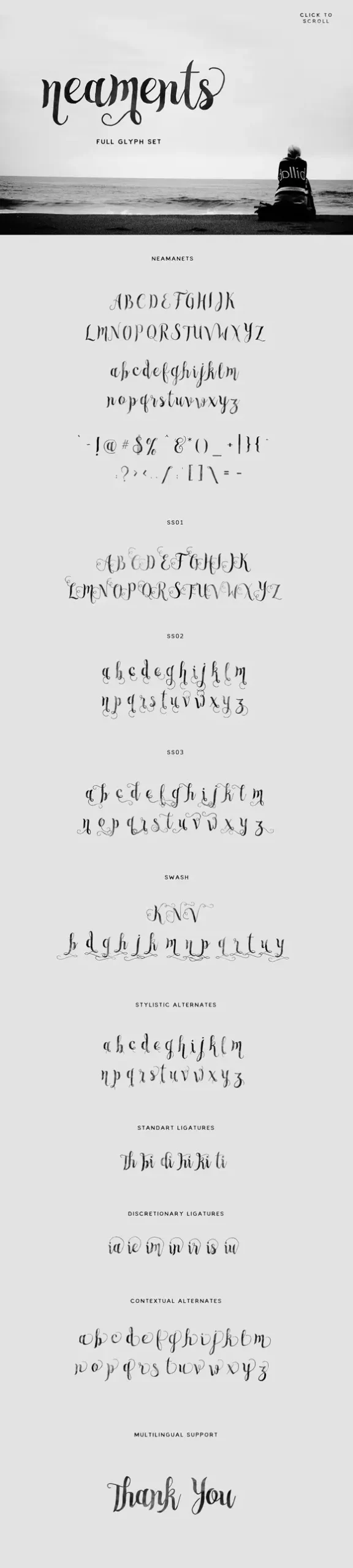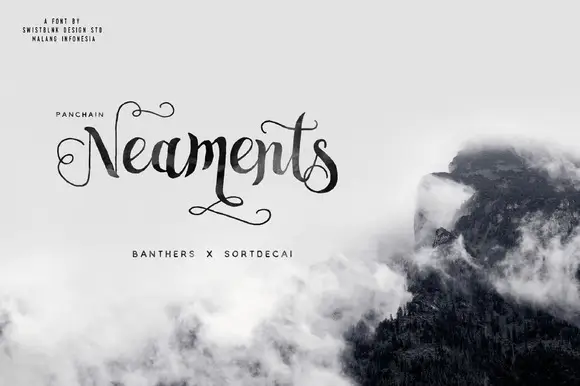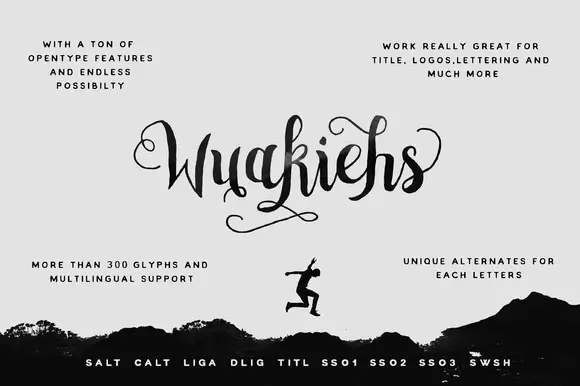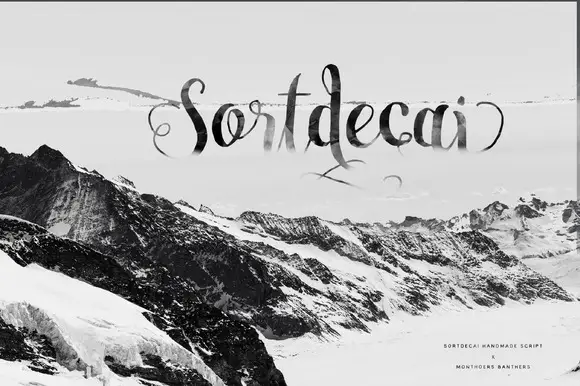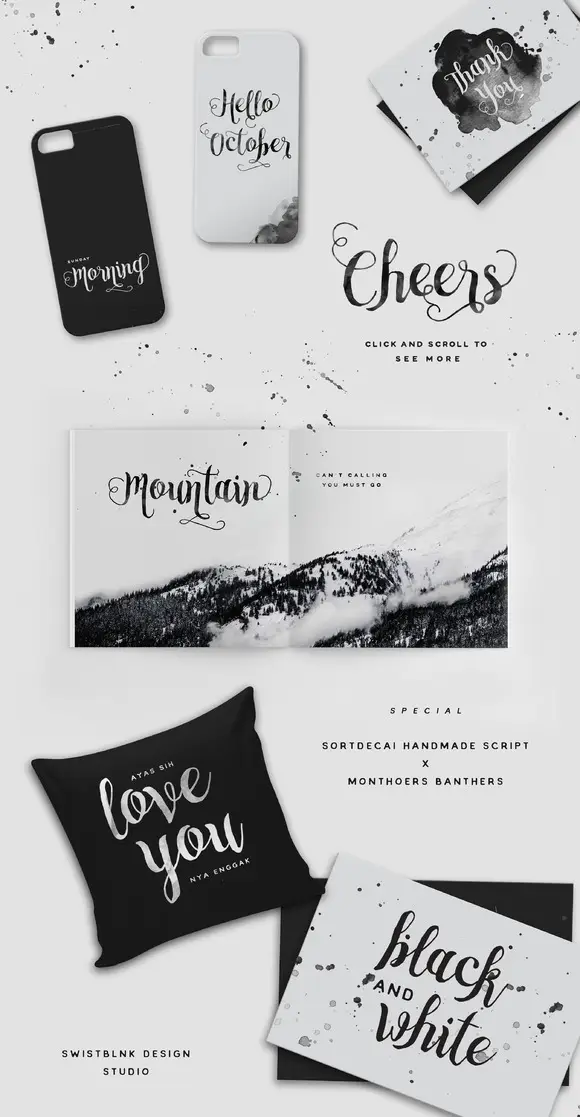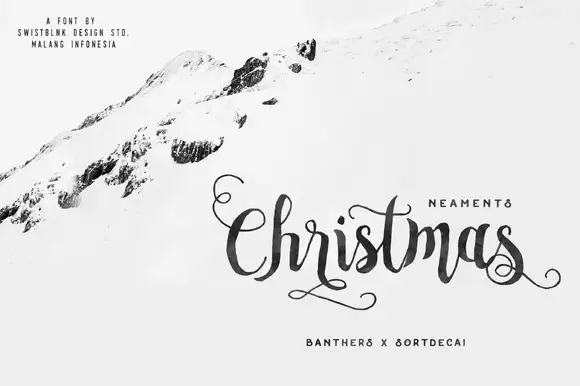
Neaments Typeface
The Neaments Typeface is a unique and versatile font that brings a modern touch to your design projects. With its clean lines and distinct character, this typeface is perfect for a variety of applications, including branding, logos, web design, and print materials.
• Multiple weights for flexibility
• Uppercase and lowercase letters, numerals, and special characters
• Easy to read, making it suitable for both headlines and body text
• Ideal for creating eye-catching logos and branding materials
• Use in web design to enhance user experience with clear typography
• Perfect for print projects like brochures, flyers, and posters